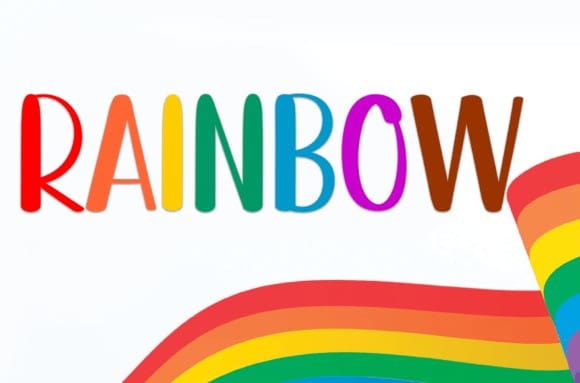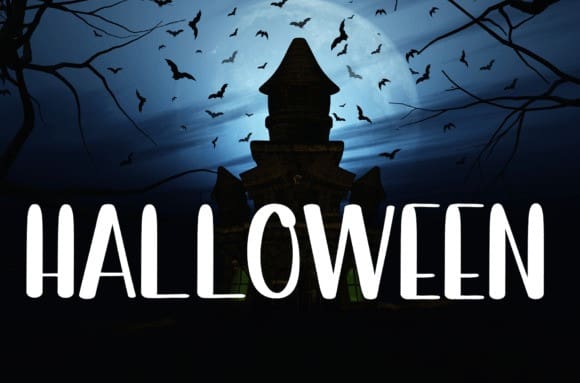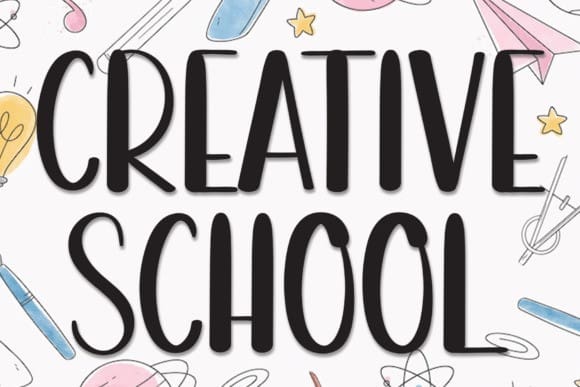
Creative School Font
Creative School Font is a cool and casual handwritten display font. Add it to your creative projects and you will love the results!